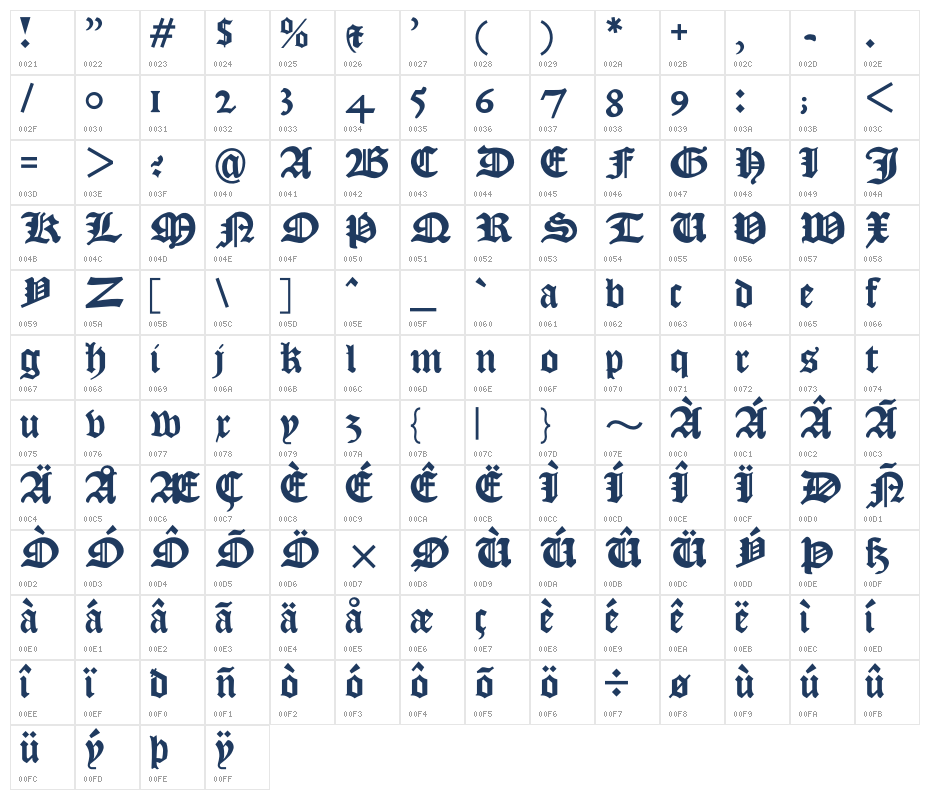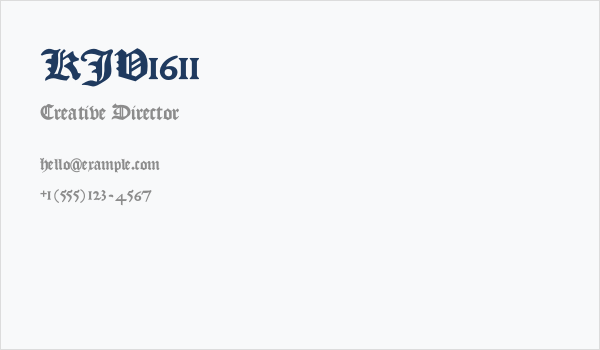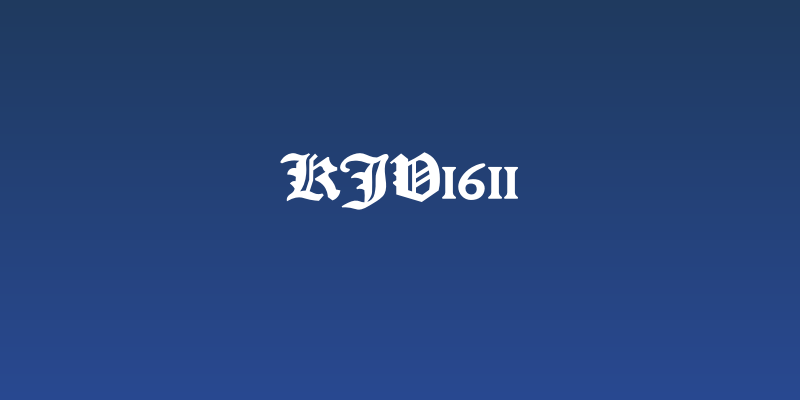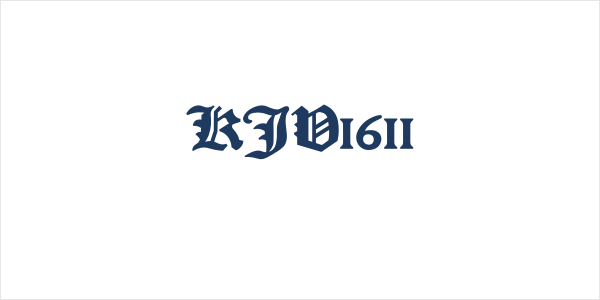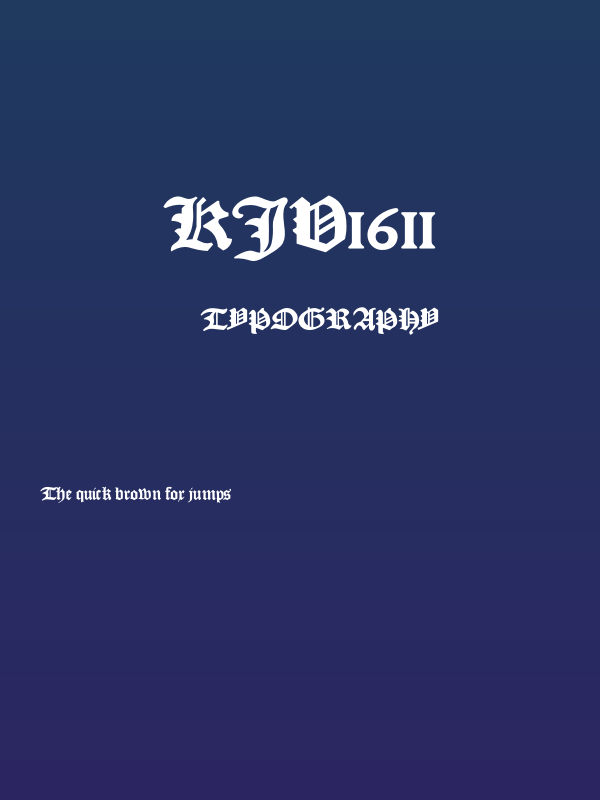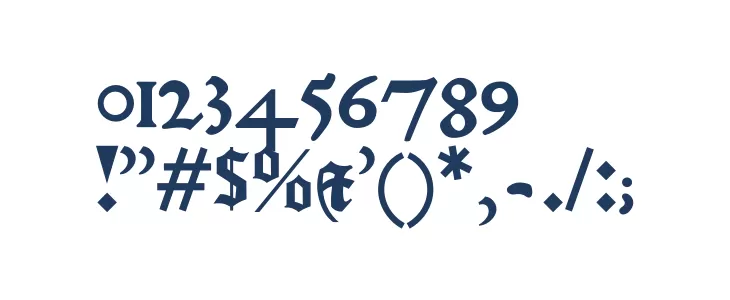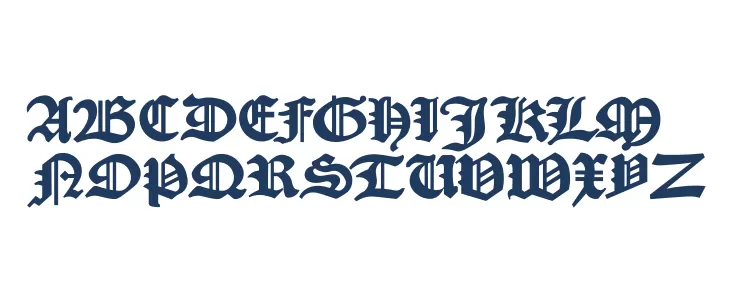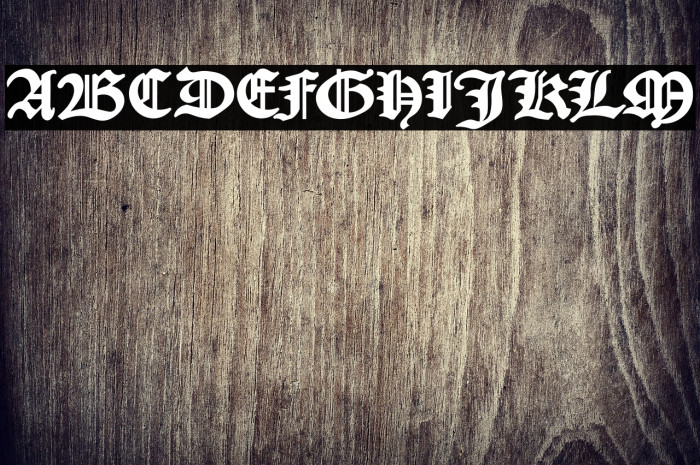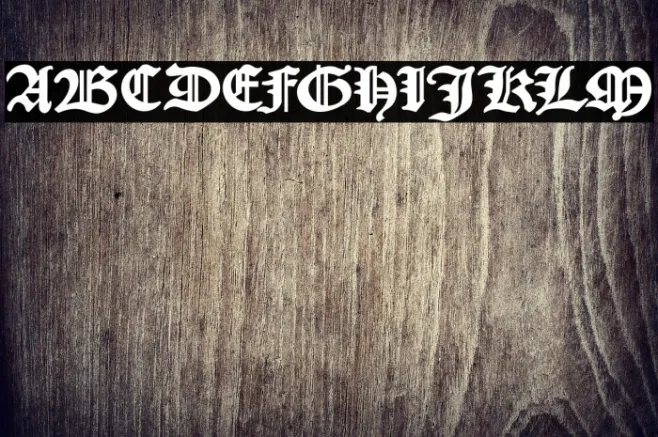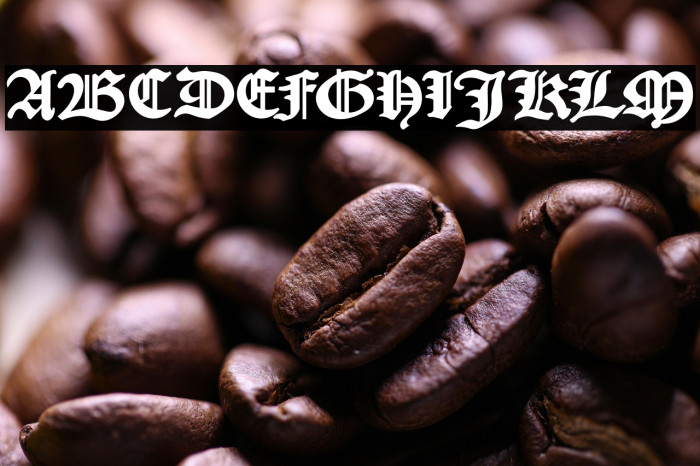
KJV1611 Font
KJV1611 Description
A Gothic or Blackletter style font with ornate, medieval-inspired letterforms, characterized by sharp, angular lines and elaborate details.
| Overall Style | Medieval, Gothic, Decorative |
| Use Case | Headlines, Logos, Tattoos, Decorative Text |